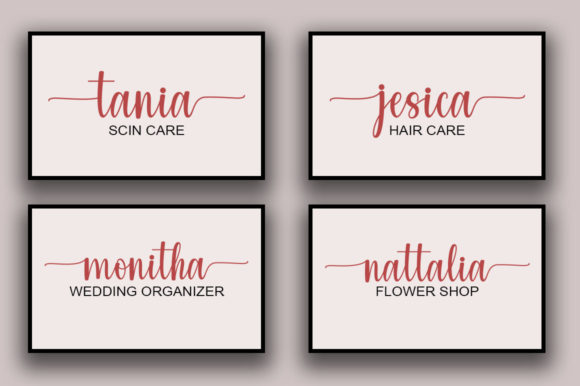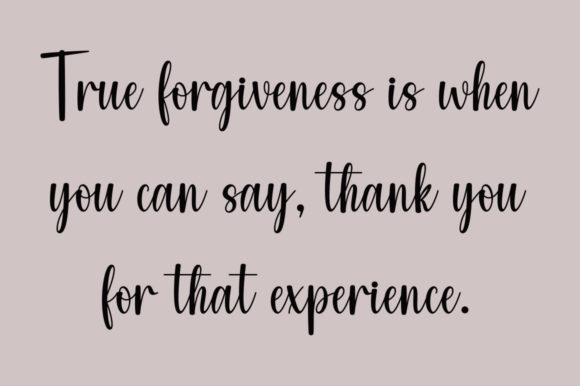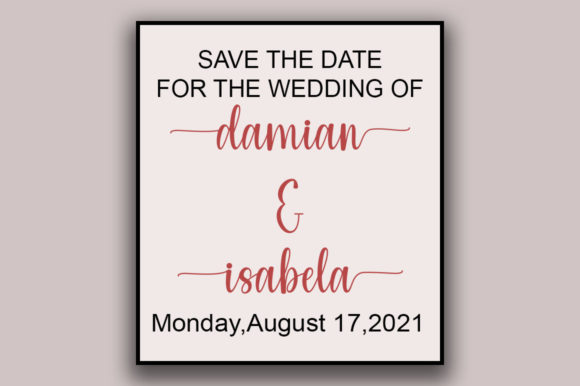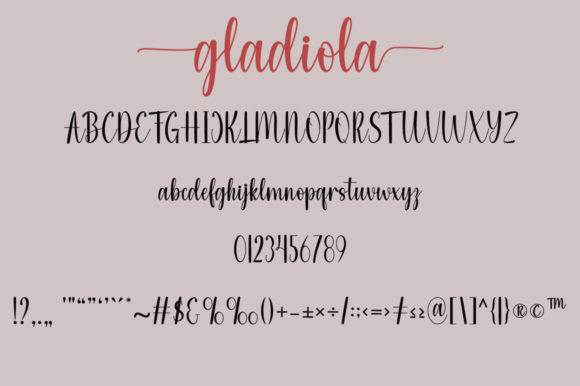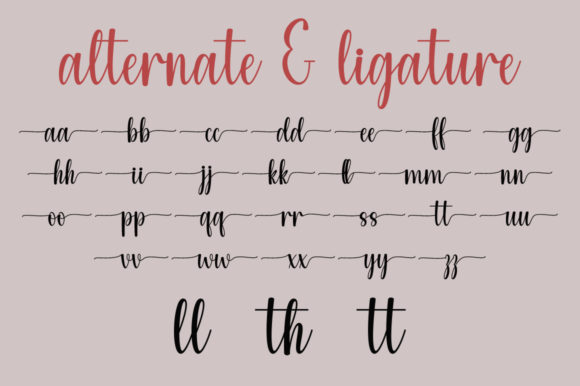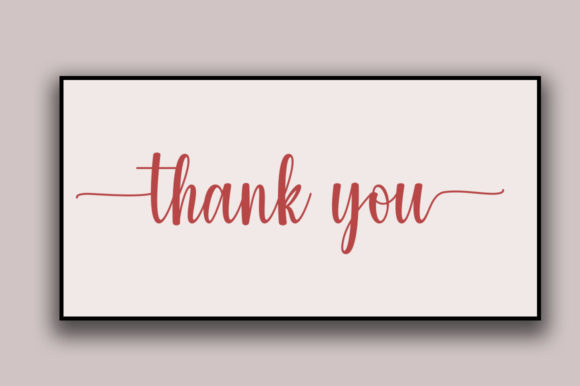
Introducing Gladiola Font: Elevate Your Designs with Elegance and Class
Are you searching for a font that adds a touch of sophistication and refinement to your designs? Look no further than Gladiola Font, a lovely and delicate script font that exudes elegance and class. Crafted with precision and attention to detail, Gladiola is the perfect choice for designers and crafters seeking a beautiful and refreshing look for their projects.
What Makes Gladiola Font Special?
Gladiola Font is particularly crafted for those who need a font that stands out from the crowd. Its unique and intricate design makes it an excellent choice for a variety of design projects, from wedding invitations and stationery to branding and advertising materials. The font’s delicate and elegant appearance is sure to captivate your audience and leave a lasting impression.
One of the standout features of Gladiola Font is its PUA (Private Use Area) encoding. This means that you can access all of the beautiful glyphs and swashes with ease, giving you greater flexibility and creative control over your designs. With PUA encoding, you can effortlessly insert alternate characters, ligatures, and ornaments to add a personal touch to your projects.
Gladiola Font is an excellent choice for designers and crafters who want to add a touch of elegance and sophistication to their work. Whether you’re creating:
• Branding and advertising materials
• Digital and print publications
• Crafting and DIY projects
Gladiola Font is the perfect companion to help you achieve your design goals.
Key Features of Gladiola Font
Here are some of the key features that make Gladiola Font an excellent choice for your design projects:
• Lovely and delicate script font
• Exudes elegance and class
• PUA encoded for easy access to glyphs and swashes
• Alternate characters, ligatures, and ornaments available
• Suitable for a variety of design projects
Tips for Using Gladiola Font
To get the most out of Gladiola Font, here are some tips to keep in mind:
• Use it as a headline font to add a touch of elegance to your designs
• Pair it with a sans-serif font for a beautiful contrast
• Experiment with different glyphs and swashes to add personality to your designs
• Use it for body text to add a touch of sophistication to your content